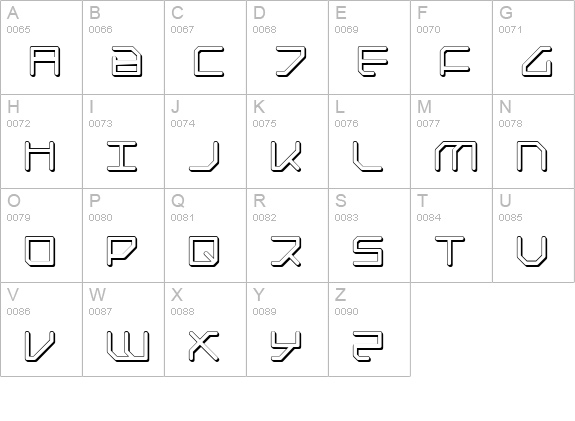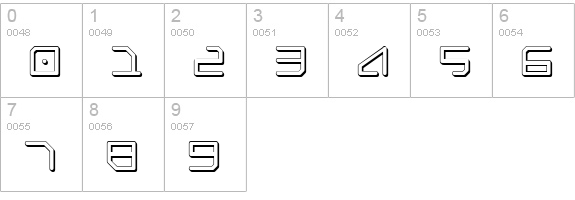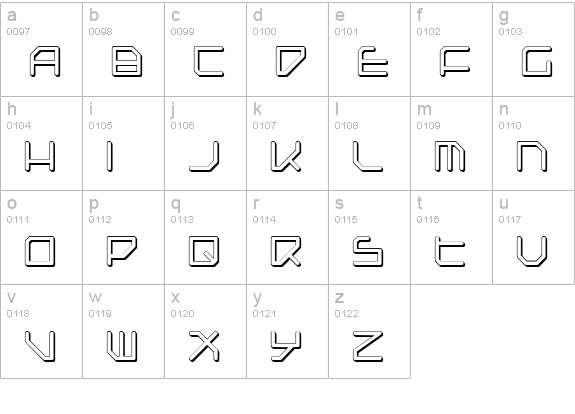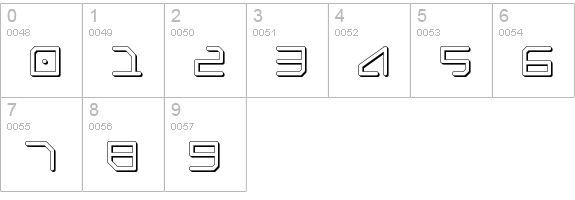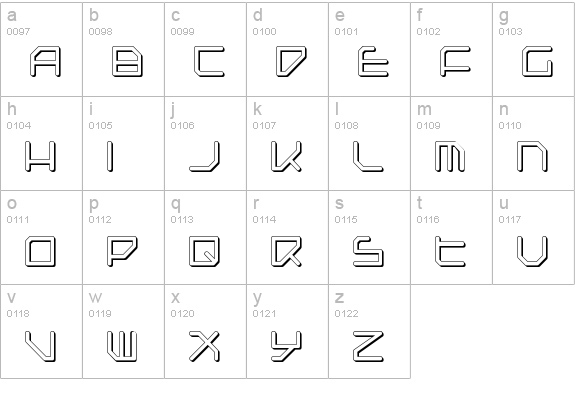
Federapolis Shadow font exudes a mysterious and elegant charm that will elevate your design projects to new heights. The intricate shadow effect adds depth and drama to each letter, making a bold statement while maintaining a sense of sophistication. Whether you're working on a poster, logo, or branding materials, this font is sure to catch the eye and leave a lasting impression. What's even better is that Federapolis Shadow font is completely free to download at FontsMarket.com. Yes, you read that right – you can access this stunning font at no cost, making it a valuable addition to your font collection without breaking the bank. So why wait? Elevate your designs with Federapolis Shadow font today and watch your projects shine like never before.